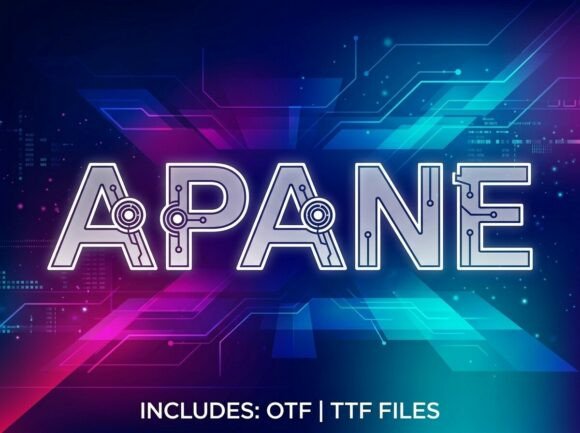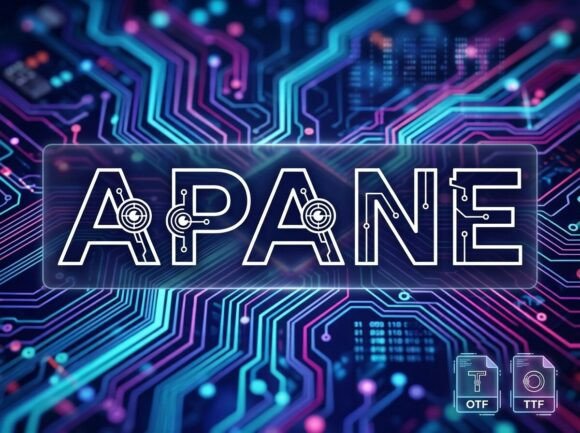
Introducing Apane Font: The Ultimate Cybernetic Typeface for the Digital Future
In the rapidly evolving digital landscape, a font can make all the difference in setting the tone for your brand, project, or creative endeavor. Imagine a typeface that embodies the essence of innovation, technology, and futurism – a font that screams “cybernetic” and “futuristic” in every line, curve, and detail. Welcome to Apane Font, the bold, geometric, and intricately designed display typeface that’s about to revolutionize the way you approach digital design.
The Birth of Apane: A Cybernetic Soul
Apane Font is more than just a collection of letters – it’s an experience. Inspired by the rhythmic circuit-board paths, nodes, and neon-inspired inline detailing, Apane is crafted to transport you into a world of high-tech sophistication. Its sharp angles and advanced technological aesthetic make it the perfect fit for projects that demand a futuristic edge. Whether you’re a software developer, an e-sports enthusiast, or a sci-fi gamer, Apane is the premier choice for creating a lasting impression.
Unleash Your Creativity with Apane’s Unique Features
- Bold and Geometric Letterforms: Apane’s letterforms are meticulously crafted to exude confidence and innovation. Its bold and geometric design ensures that your message stands out in a crowded digital landscape.
- Rhythmic Circuit-Board Paths: The font’s intricate design features rhythmic circuit-board paths that add a layer of depth and visual interest to your text.
- Neon-Inspired Inline Detailing: Apane’s neon-inspired inline detailing gives it a mesmerizing glow, perfect for creating eye-catching social media headers, e-sports branding, and gaming interfaces.
- Sharp Angles and Advanced Technological Aesthetic: Apane’s sharp angles and advanced technological aesthetic make it the ultimate choice for projects that demand a cutting-edge look and feel.
Perfect for Digital Pioneers and Creative Minds
Apane Font is designed to cater to the needs of digital pioneers, creative minds, and innovative thinkers. Here are some of the ideal use cases for this versatile typeface:
- Independent E-Sports Branding: Apane’s bold and futuristic design makes it perfect for e-sports teams, leagues, and events.
- Software Developer Portfolios: Showcase your coding skills and tech expertise with Apane’s advanced technological aesthetic.
- Sci-Fi Gaming Interfaces: Transport your players into a futuristic world with Apane’s cybernetic and neon-inspired design.
- High-Impact Social Media Headers: Make a statement on social media with Apane’s bold and eye-catching design.
Why Choose Apane Font?
In a digital world where fonts can make or break your brand, Apane Font offers a unique combination of style, innovation, and versatility. Here are some compelling reasons to choose Apane:
- Unique and Memorable: Apane’s bold and futuristic design ensures that your message stands out and stays remembered.
- Highly Versatile: Use Apane for a wide range of projects, from e-sports branding to software developer portfolios, sci-fi gaming interfaces, and social media headers.
- Easily Customizable: Experiment with different colors, textures, and effects to make Apane your own.
Step into the digital future with Apane Font, the ultimate cybernetic typeface for designers, crafters, and digital pioneers. Its bold, geometric letterforms, rhythmic circuit-board paths, and neon-inspired inline detailing make it the perfect choice for projects that demand a futuristic edge. Whether you’re looking to create a lasting impression, showcase your tech expertise, or transport your audience into a futuristic world, Apane Font is the premier choice for innovative thinkers and creative minds.